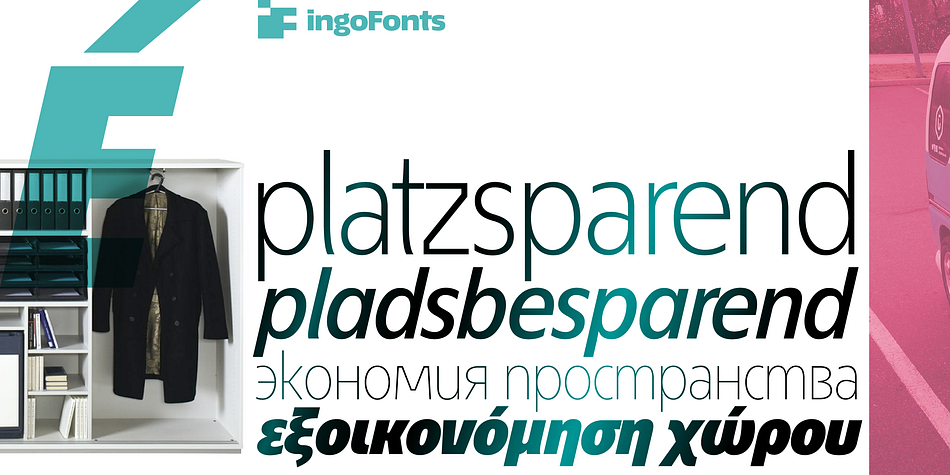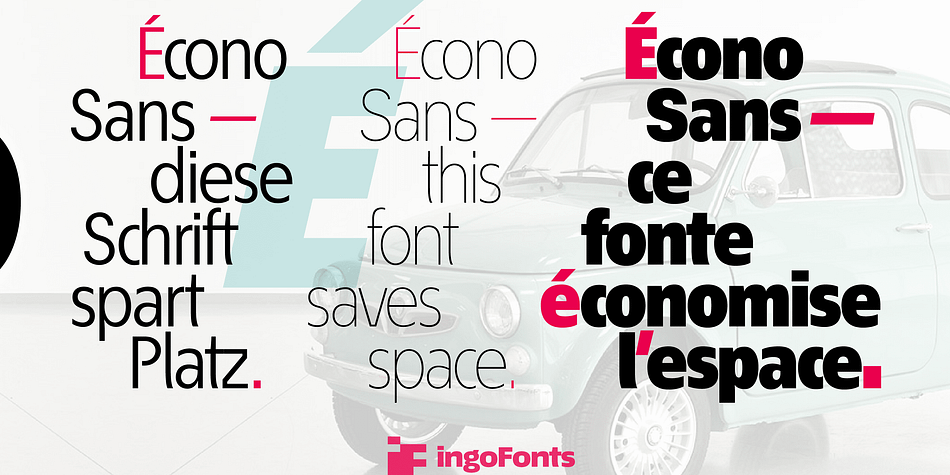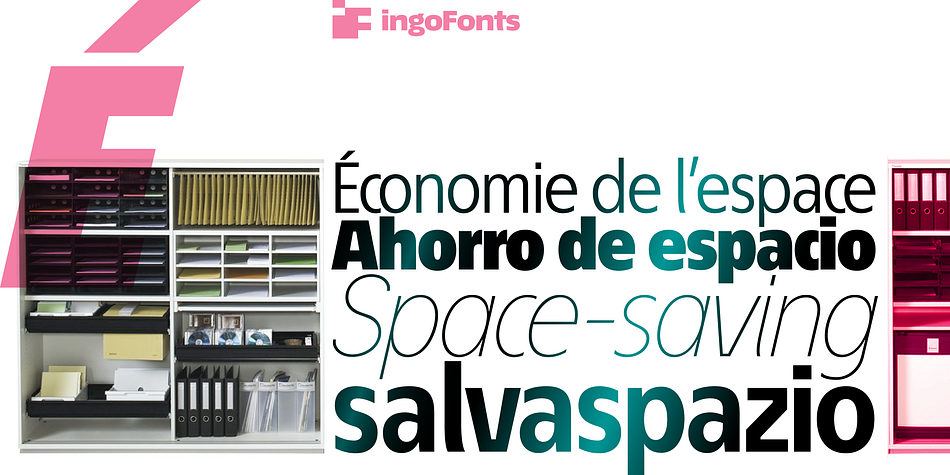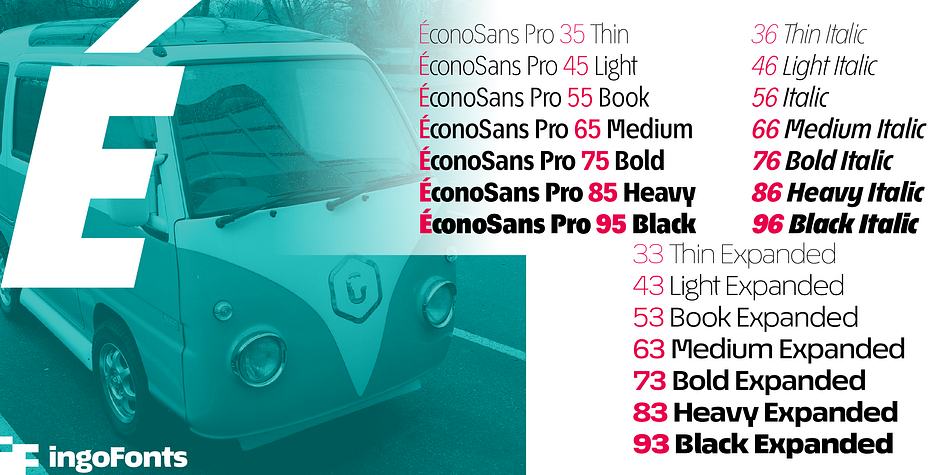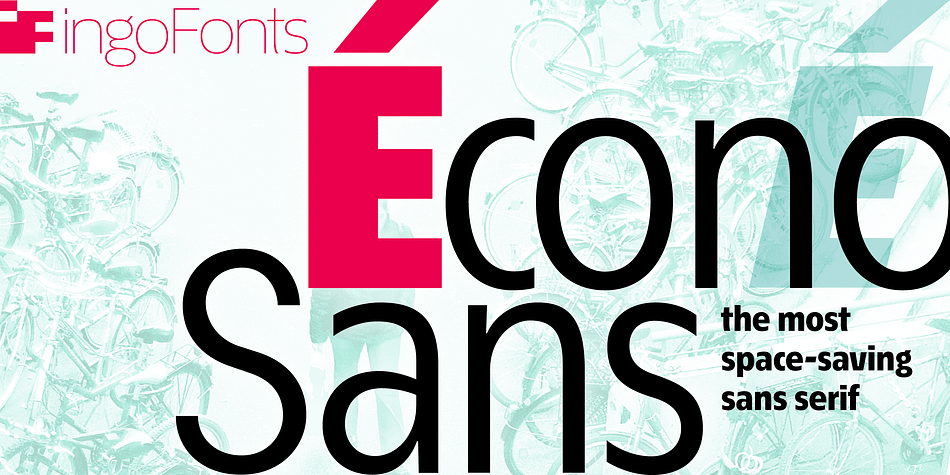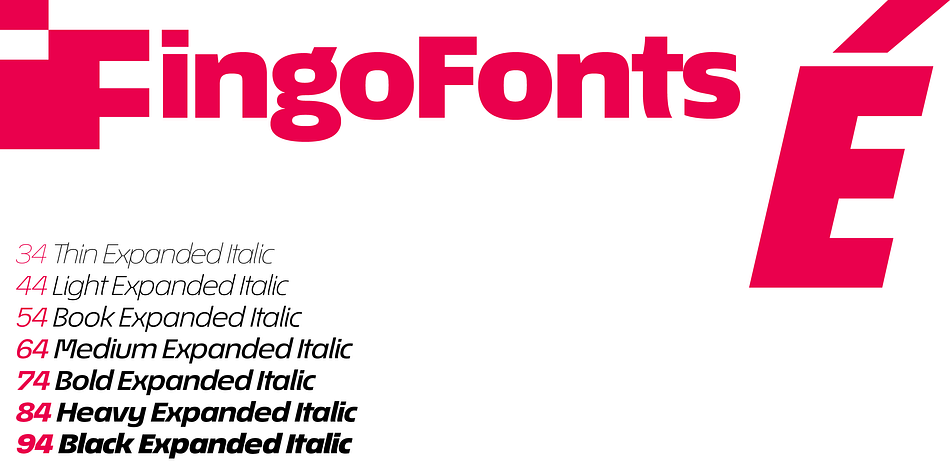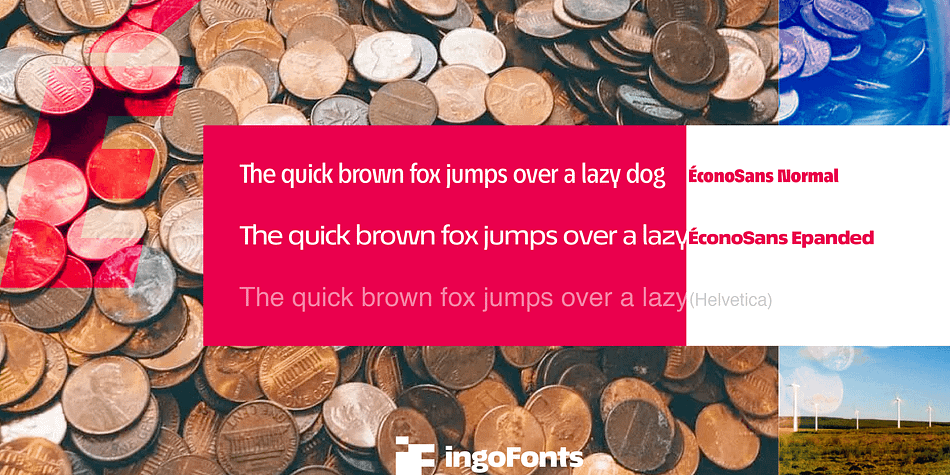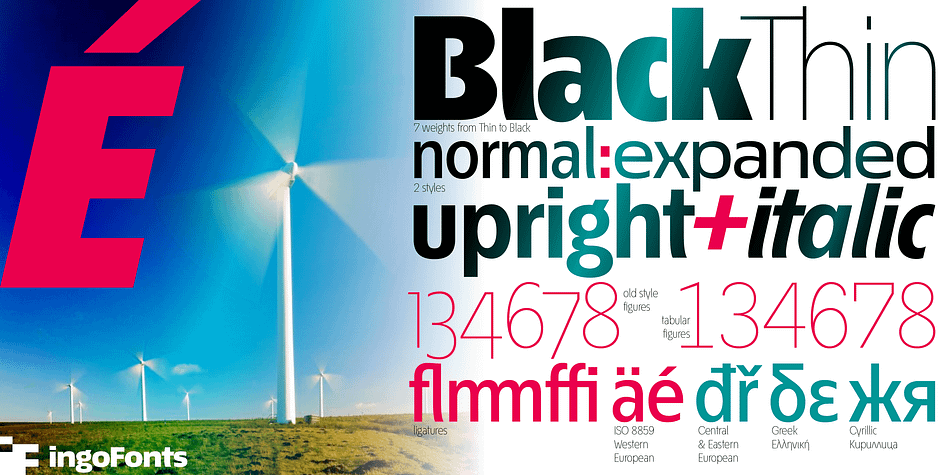
Écono Sans Pro
Designed by Ingo Zimmerman, Écono Sans Pro is a sans serif font family. This typeface has twenty-eight styles and was published by ingoFonts.
The most space-saving sans serif.
This font saves more space than any of its kind!
Slim proportions, but not “condensed”
Characters which nearly touch
Sparse ascenders and descenders
Distinct forms
In practice, there are always situations in which as much information as possible has to be positioned in as little space as possible. The ingoFont Écono Sans is made for exactly this purpose.
The shapes of the upper and lower case letters are completely matter-of-fact, the way a modern font has got to be. The letters c, e, and s are wide open to their neighbors. An especially distinguished trait of this font is the design of the “triangular” characters v, w, y, x, k, z and A, V, W, Y, Z, K, X, M, N. And the open form of B, R and P is also not typical in a sans serif.
The distance between letters is kept tight and often the characters nearly touch, but only nearly.
Designer Ingo Zimmerman